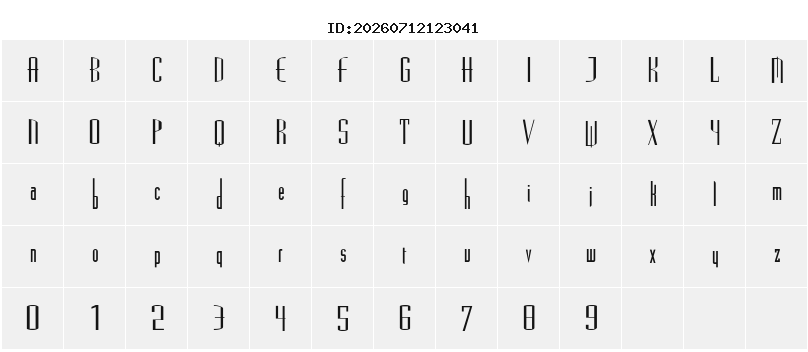
About Madrid2Exp.ttf
Madrid2Exp.ttf is a modern, elegant sans-serif font designed for ultimate readability and visual harmony. Perfect for branding, headlines, web design, and print materials.